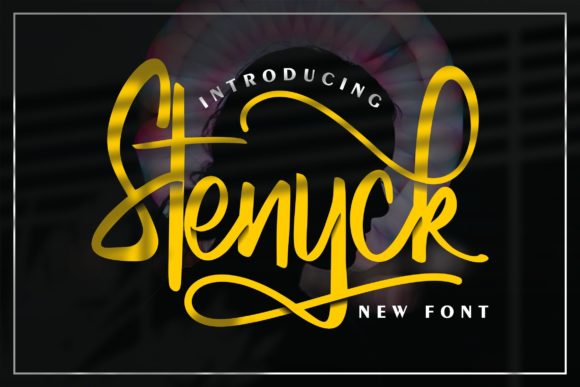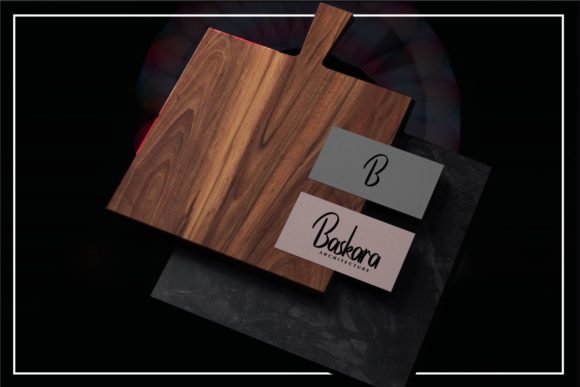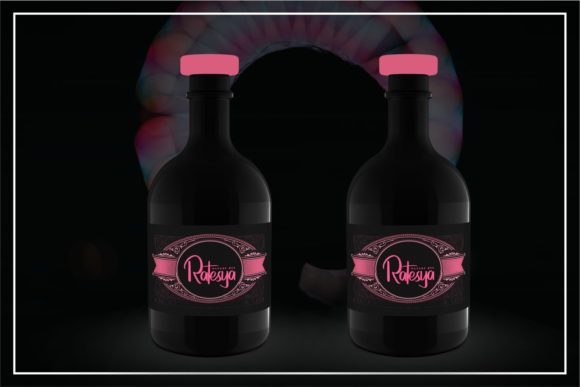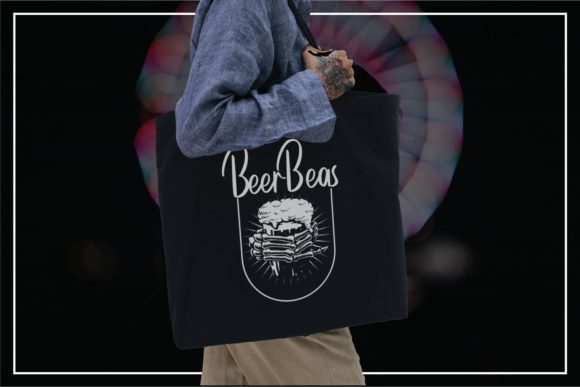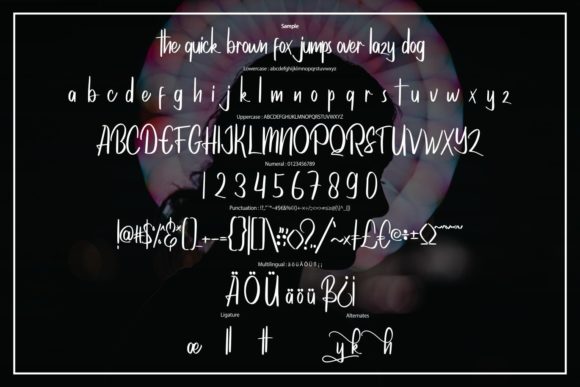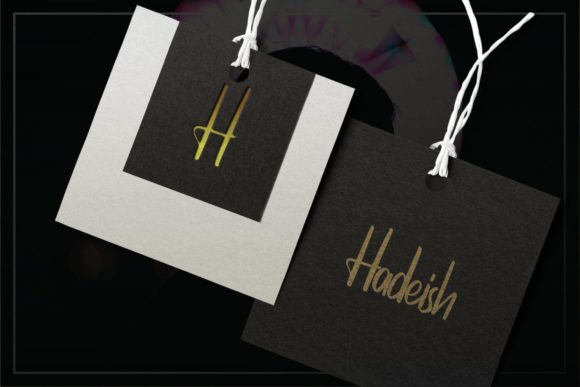
Stenyck Font
About Stenyck Font
Stenyck is a laid-back, beautiful and brushed handwritten font. It features uniquely shaped letters, and as a result, it will easily match a wide range of creations that require a distinct touch.